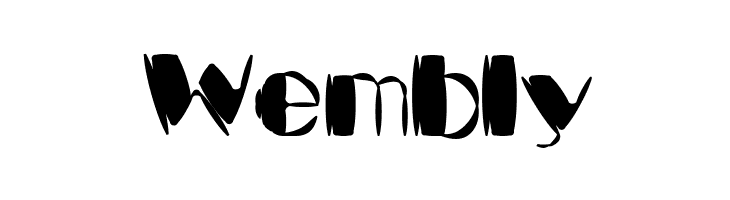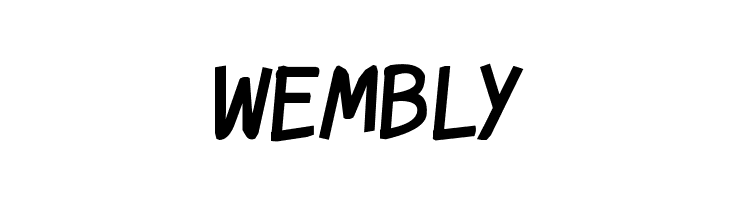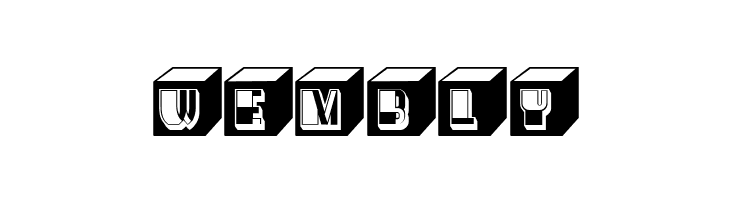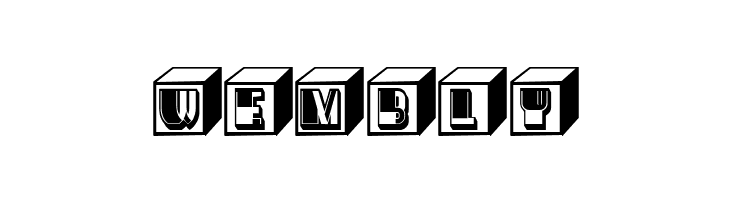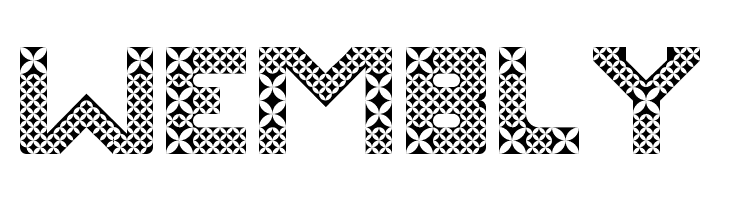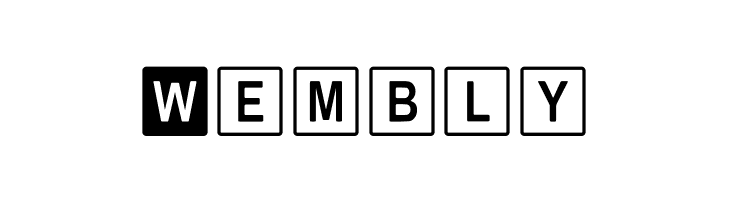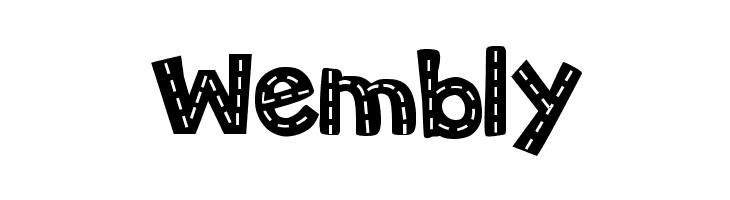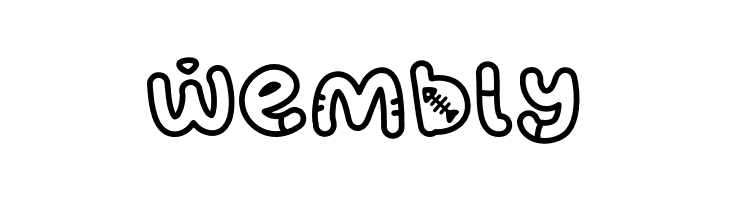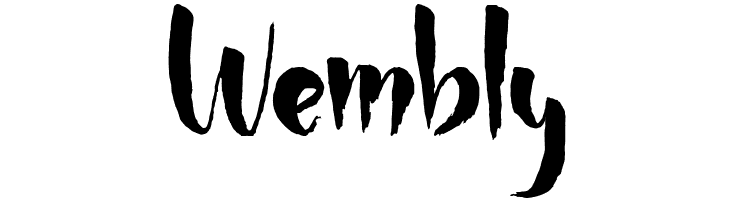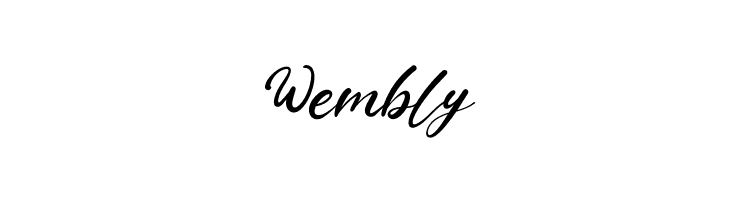
A decorative font with martial arts figures representing each character.
A bold, modern font with geometric and rounded elements for a dynamic look.
A bold, italic font with a dynamic and modern style.
A bold, italic font with a modern, dynamic style and smooth curves.
A playful, decorative font with intricate patterns and textures.
A bold, italic, handwritten font with a dynamic and playful style.
A dynamic, italicized handwritten font with a fluid and elegant style.
A playful, handwritten-style font with bold, rounded strokes.
A bold, dynamic brush script font with expressive strokes and a hand-painted look.
A whimsical, hand-drawn font with quirky, cartoonish characters.
A playful and whimsical collection of hand-drawn illustrations with a doodle-like style.
A playful decorative font with hand-drawn illustrations replacing traditional characters.
A playful, hand-drawn font with tall, narrow letters and charming loops.
A playful, handwritten font with bold, slanted strokes and a lively appearance.
A decorative font with bold letters in circular frames linked by ornamental designs.
A bold, 3D block-style font with cube-like encasements and sharp geometric edges.
A bold 3D block font with a vintage, decorative style.
A bold, modern font with clean, geometric lines and consistent stroke thickness.
A playful, hand-drawn font with decorative striped patterns.
A cursive, handwritten font with elegant, flowing strokes.
A playful, outlined font with whimsical patterns and a handmade feel.
A playful, bone-like decorative font with a hand-drawn aesthetic.
Bold, tile-enclosed sans-serif font with a game-like aesthetic.
A bold, playful font with a dotted pattern and rounded characters.
A bold, zebra-patterned font perfect for creative and adventurous designs.